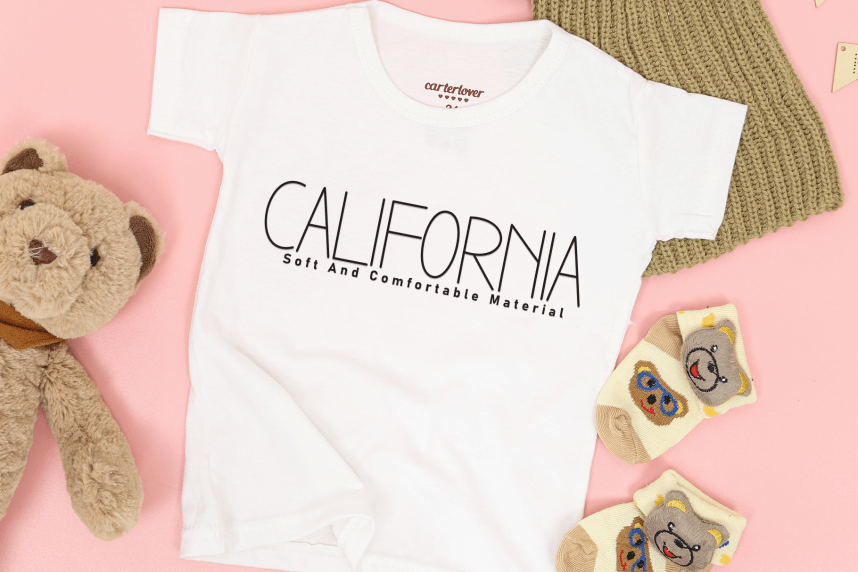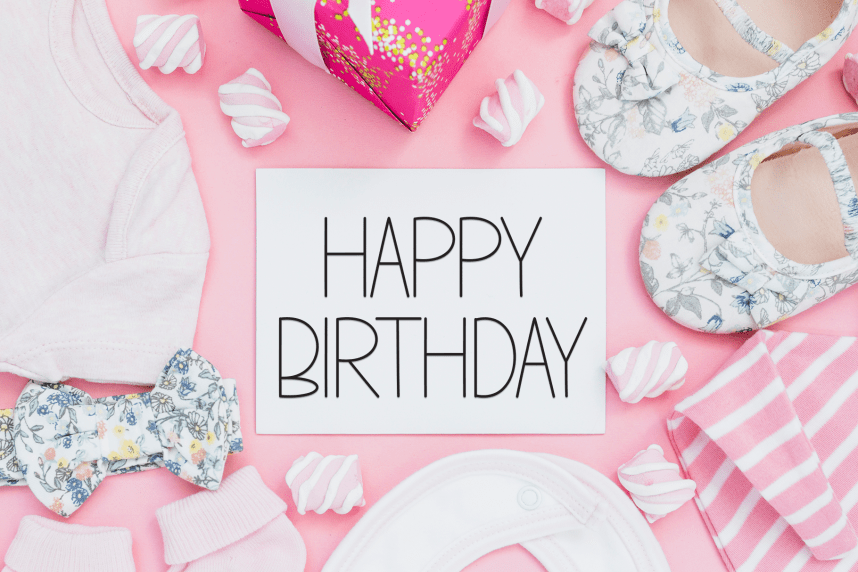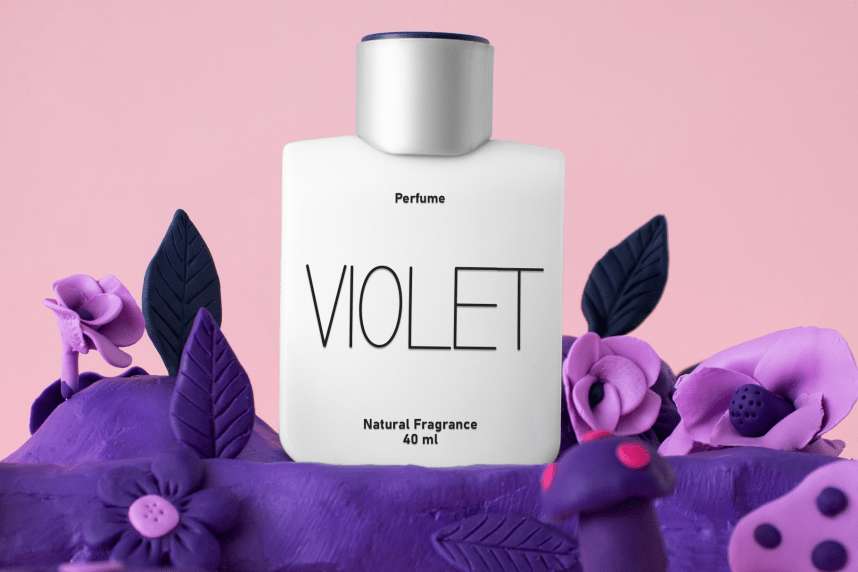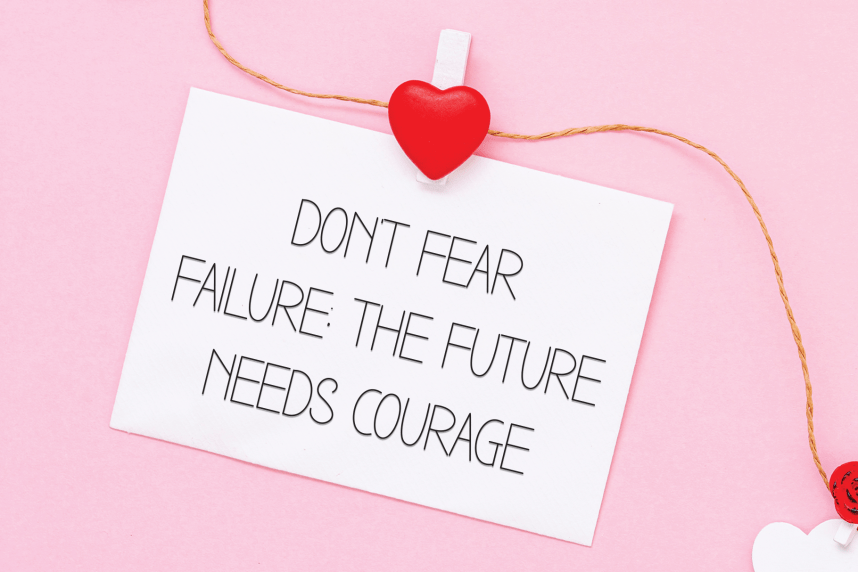
Cake Topper – Simple Handmade Font
Cake Topper – Simple Handmade Font is a sweet and friendly handwritten display font. Cute and fun, this font is ideal for writing wedding invitations, cards, or any other design that might need a playful touch!